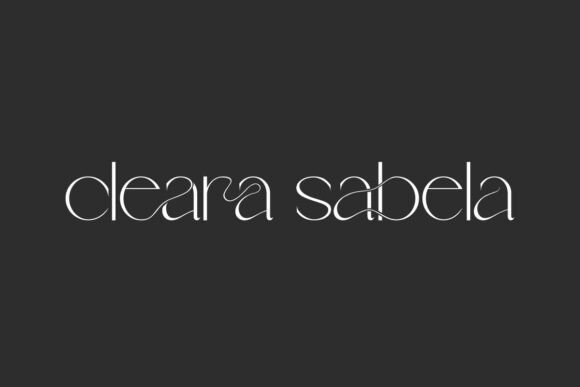
Unlock Your Creative Potential with Cleara Sabela Font
Remember the rush of excitement when you finally find the perfect font to match your creative vision? The moment when every letter, every word, and every message comes together in perfect harmony? That’s what Cleara Sabela Font is all about – helping you create stunning designs that leave a lasting impression.
This elegant sans-serif display font is designed to bring sophistication and versatility to your creative work. Whether you’re crafting bold headlines, sleek branding, or elegant invitations, Cleara Sabela Font ensures your message stands out with clarity and charm. As a valuable addition to any designer’s toolkit, it’s perfect for logos, editorial layouts, packaging, social media graphics, and more.
Cleara Sabela Font Key Features
- Font Family: Cleara Sabela is a sans-serif font family designed for digital use, suitable for body text and headings.
- Size: The font family includes a range of weights from Thin to Black, offering 10 different weights to cater to various design requirements.
- Unique Characteristics: The font features a modern, clean design with a subtle geometric feel, making it suitable for a wide range of digital applications, including websites, mobile apps, and digital publications.
- Character Set: Supports a wide range of languages, including Latin, Cyrillic, and Greek, making it a versatile choice for global audiences.
Designer Review: Cleara Sabela Font
As a designer, I’m always on the lookout for unique and stylish fonts to elevate my projects. The Cleara Sabela Font caught my eye, and I decided to put it to the test. Here’s my honest review.
- Unique style: Cleara Sabela Font has a distinct, hand-drawn feel that sets it apart from more traditional fonts.
- High-quality vectors: The font comes with crisp, scalable vectors that make it perfect for print and digital use.
- Good legibility: Despite its decorative style, Cleara Sabela Font is surprisingly easy to read, even at smaller sizes.
- Limited character set: Cleara Sabela Font is a bit limited in terms of character set, which may not be ideal for projects that require a wide range of characters.
- No bold or italic styles: The font doesn’t come with bold or italic styles, which may make it less versatile for certain design applications.
Overall, I’m impressed with the Cleara Sabela Font’s unique style and high-quality vectors. While it has some limitations, it’s perfect for projects that require a distinctive, decorative font. If you’re looking for a font that adds a touch of personality to your design, Cleara Sabela Font is definitely worth considering.
Tips for Getting the Most Out of Cleara Sabela Font
For best results, use Cleara Sabela font in combination with other elegant and modern fonts. Experiment with different font sizes, colors, and styles to create a unique and visually appealing design.
Cleara Sabela font is ideal for use in wedding invitations, baby shower invitations, and other special occasion invitations. It’s also great for use in branding materials, such as business cards and letterheads, where a touch of elegance and sophistication is desired.